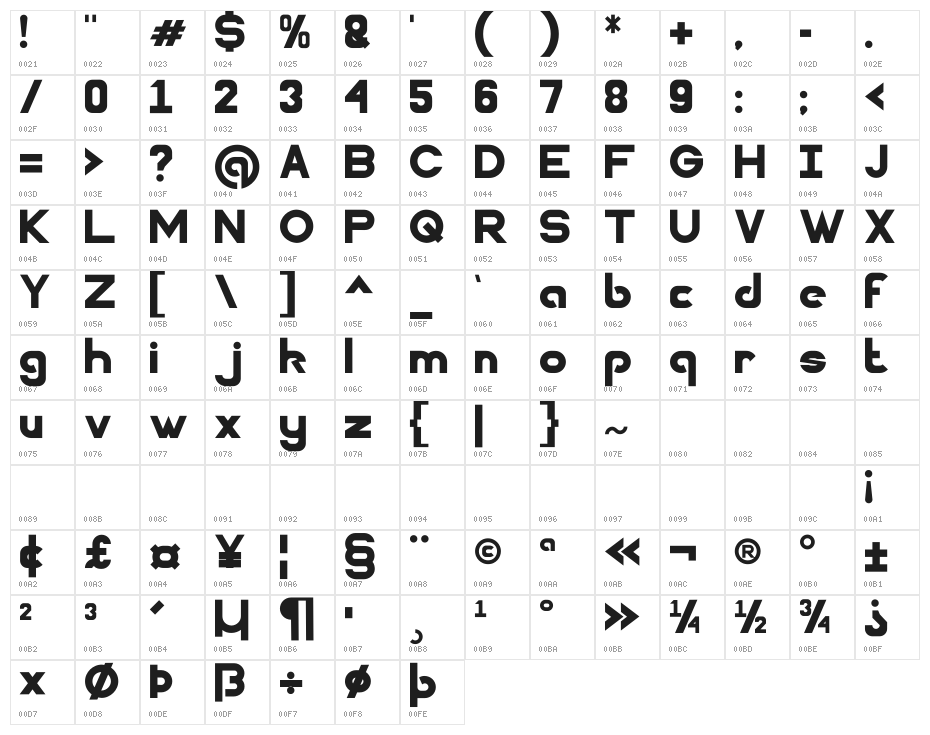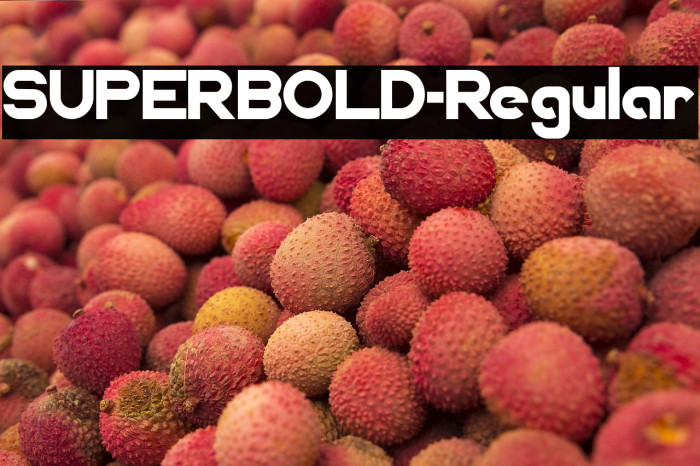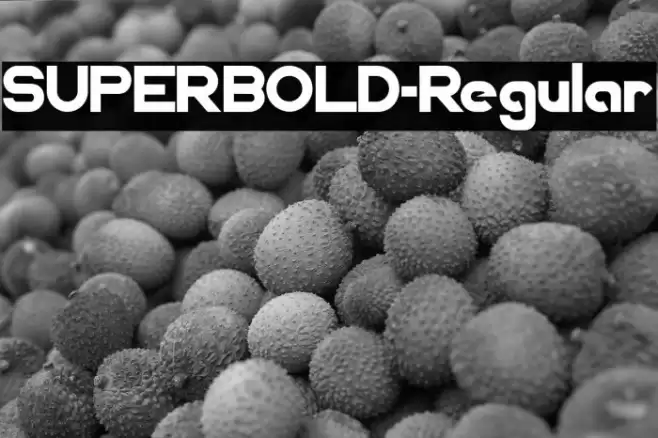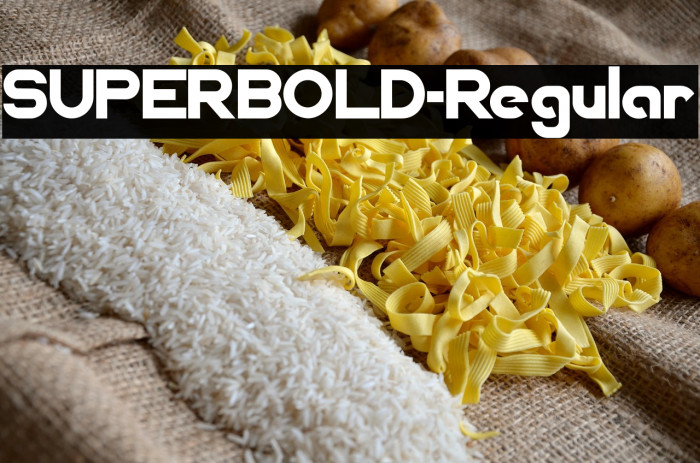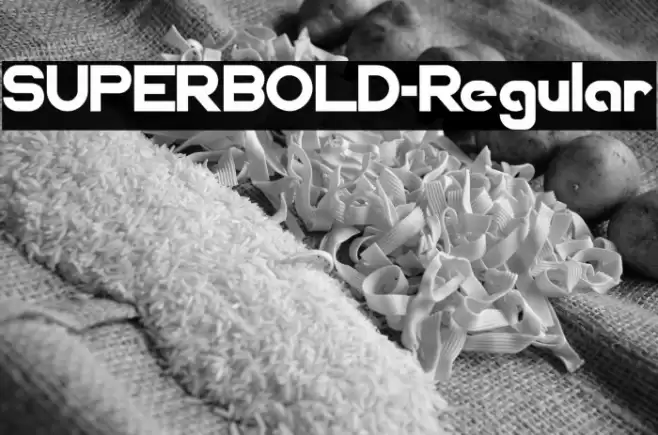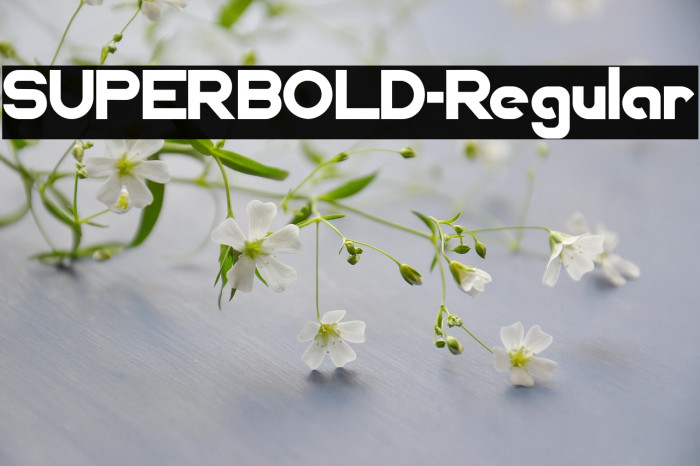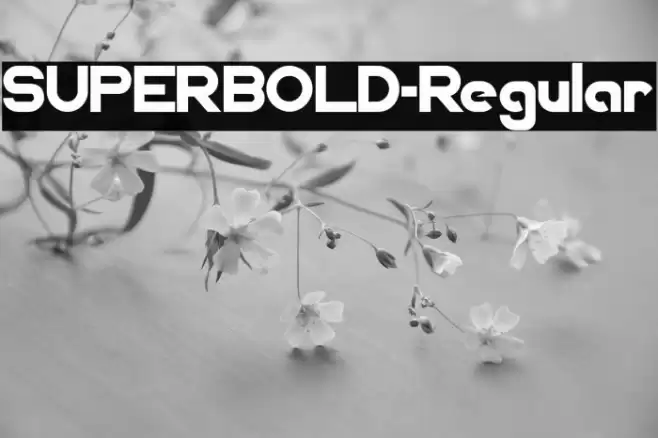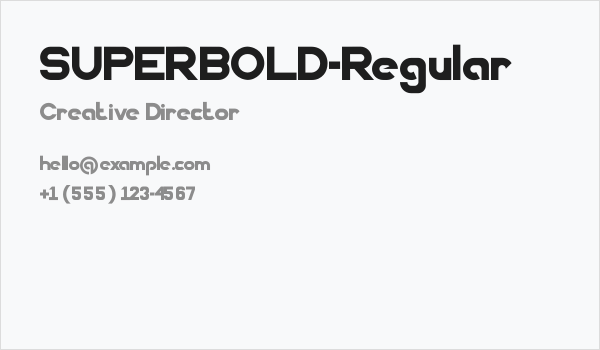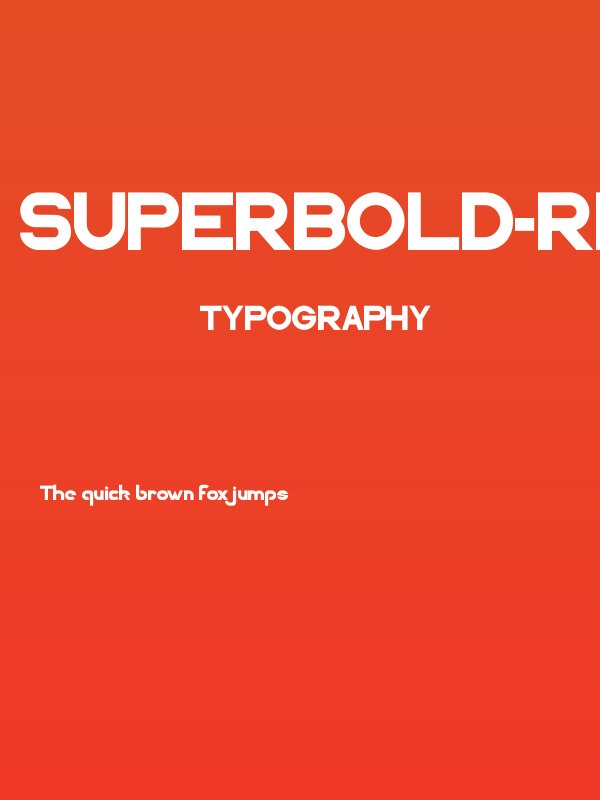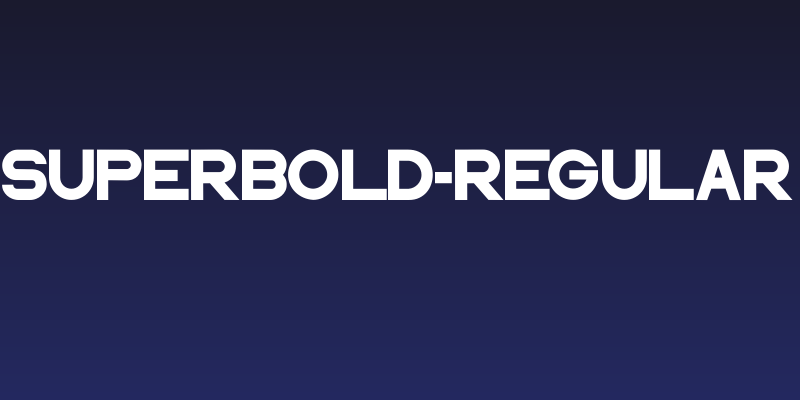
SUPERBOLD-Regular Font
SUPERBOLD-Regular Description
This font is a bold and striking typeface with a modern and geometric design. The uppercase letters are characterized by their thick, uniform strokes and sharp angles, giving them a strong and impactful presence. The lowercase letters maintain the boldness but introduce a slight curvature, adding a touch of softness to the overall appearance. The numerals are equally bold, ensuring consistency throughout the typeface. Special characters are designed with the same geometric precision, making them stand out. This font is ideal for making a statement and capturing attention.